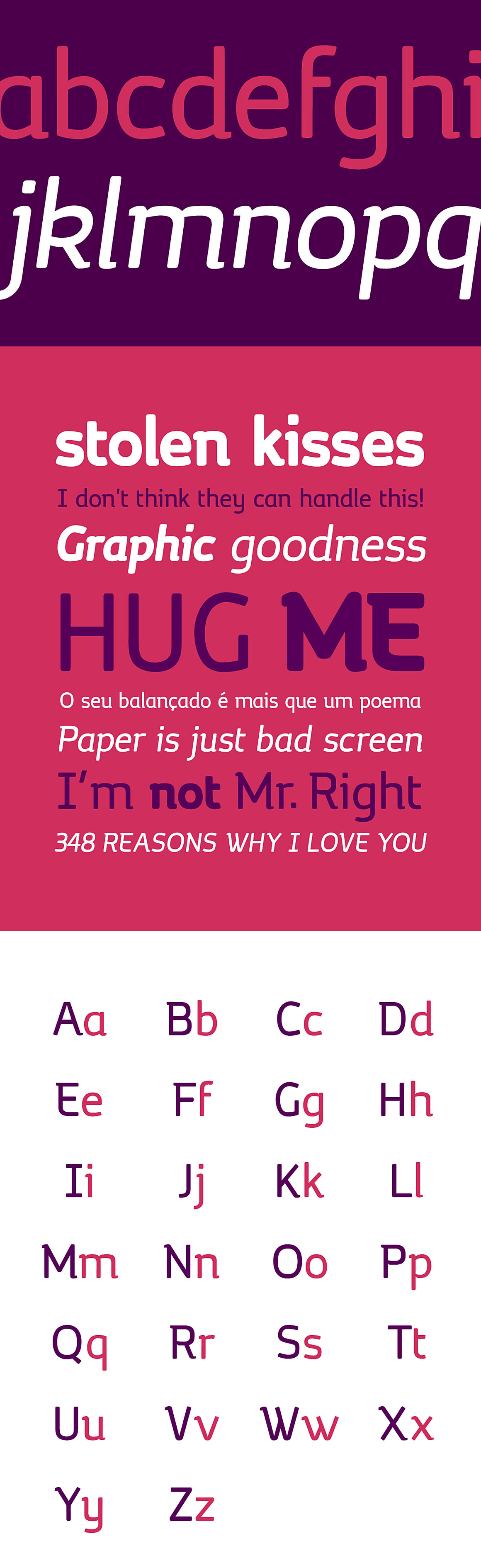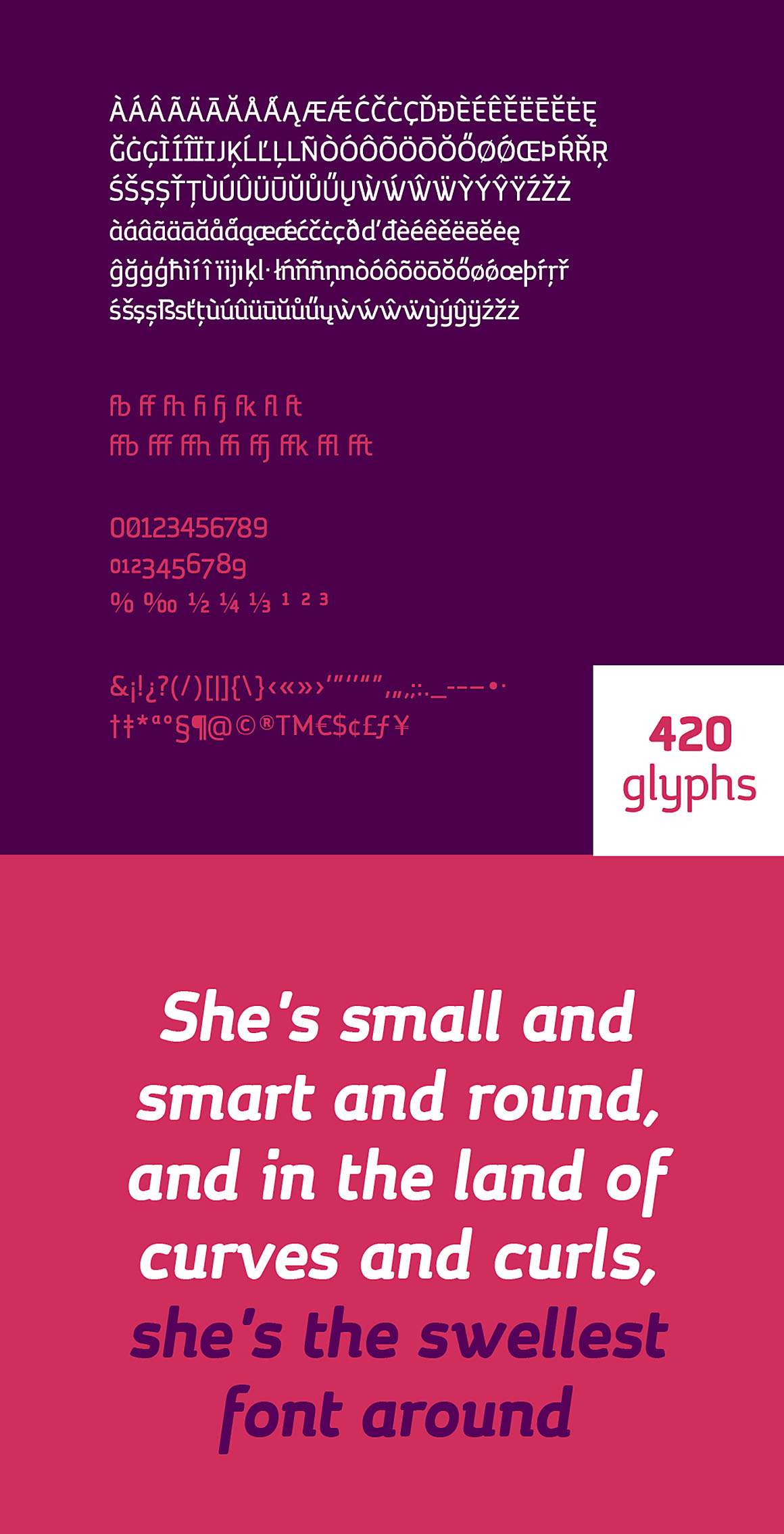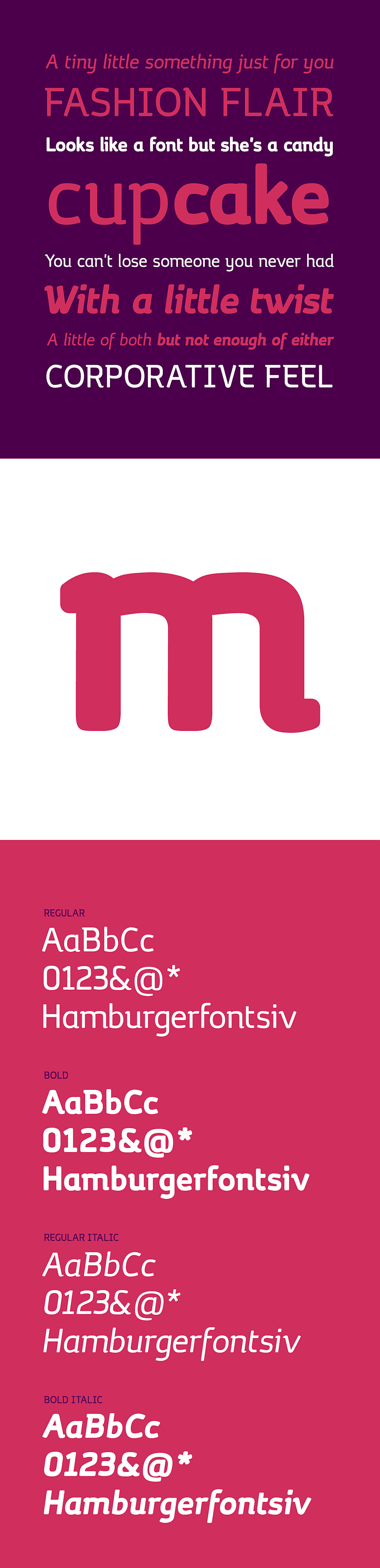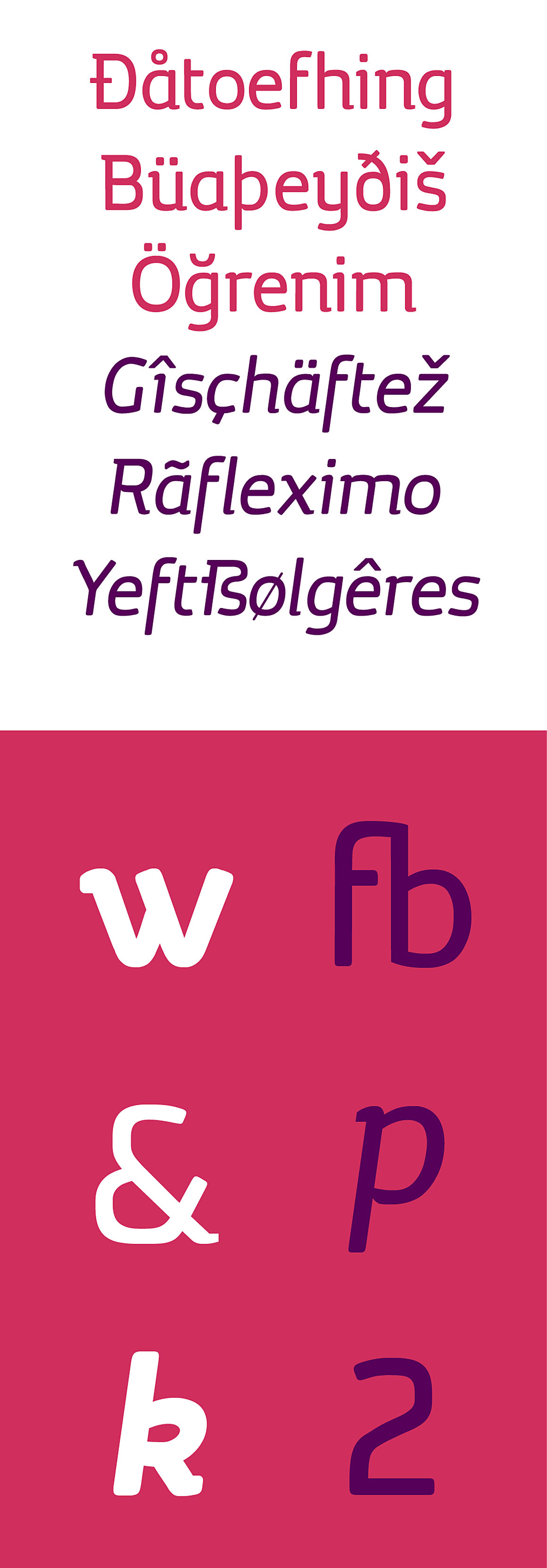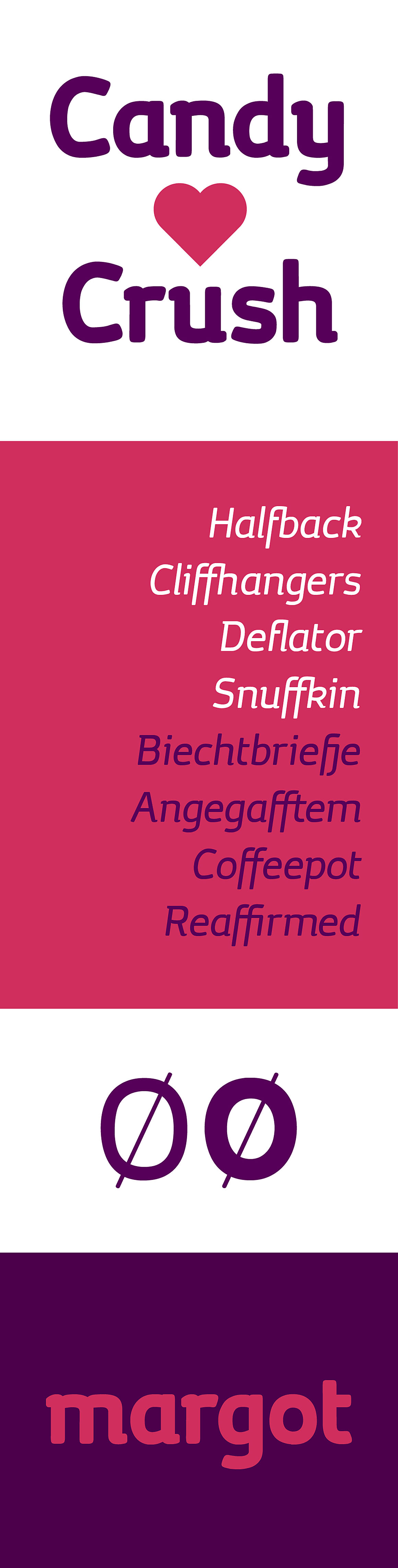
Margot – Free Font
This amazing sans serif custom font is from Adrià Gómez. With unique modern style is great for your new projects. Download and enjoy 😉